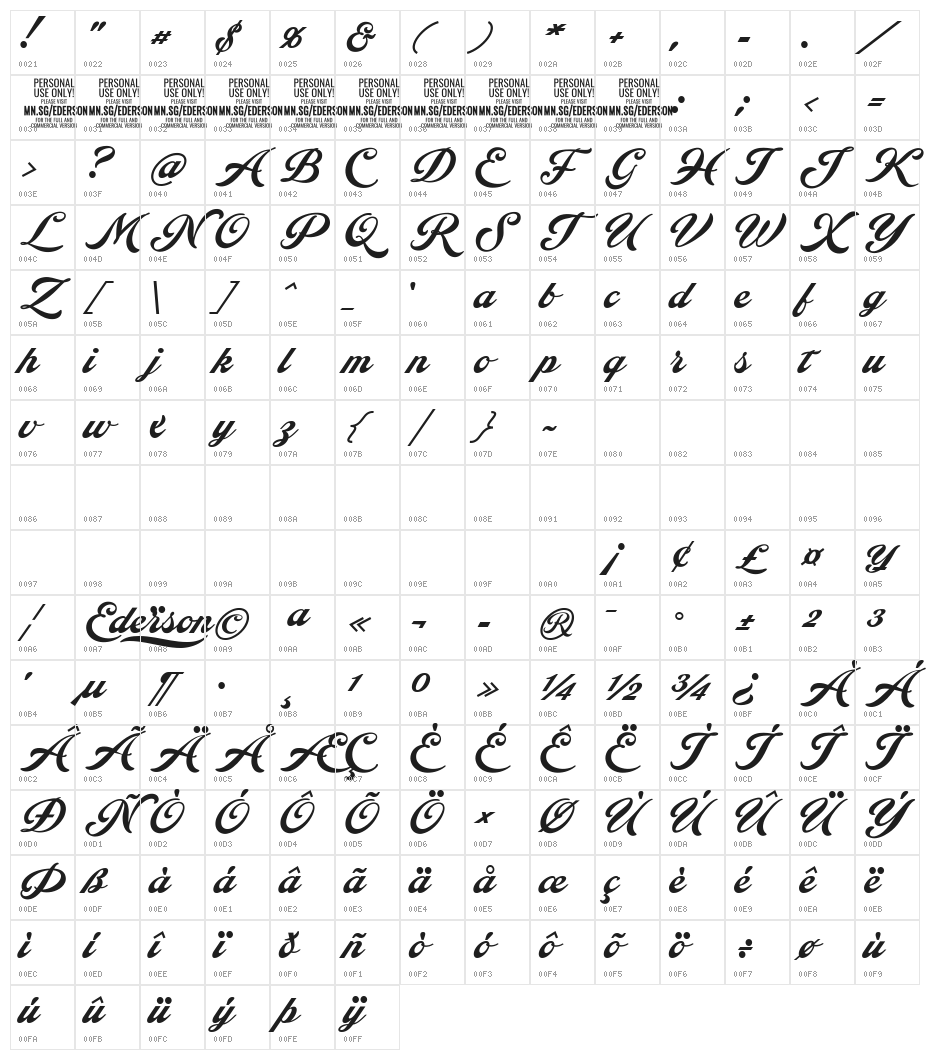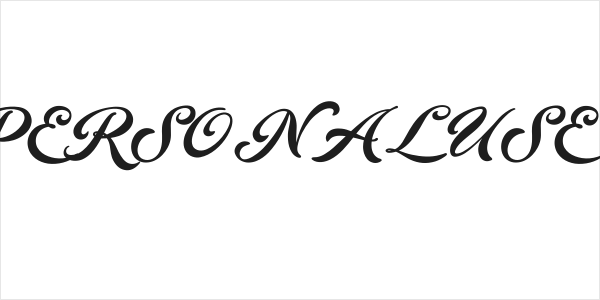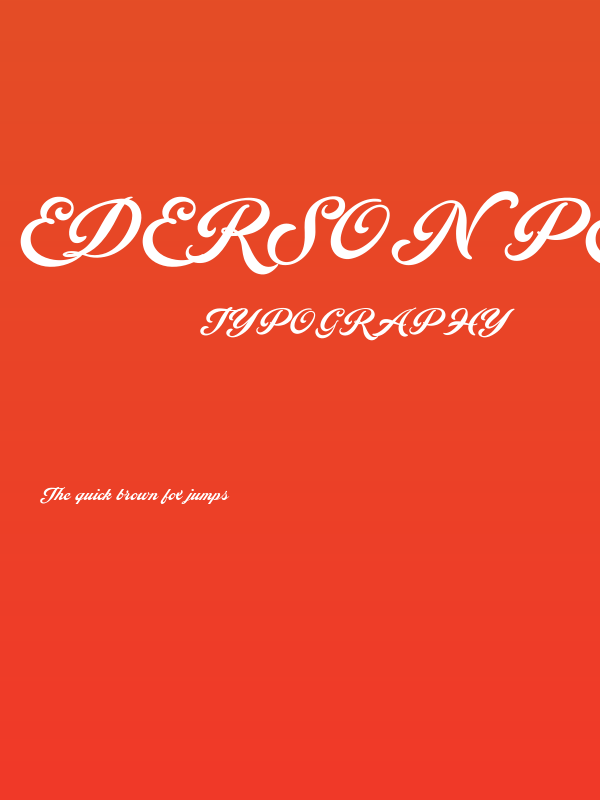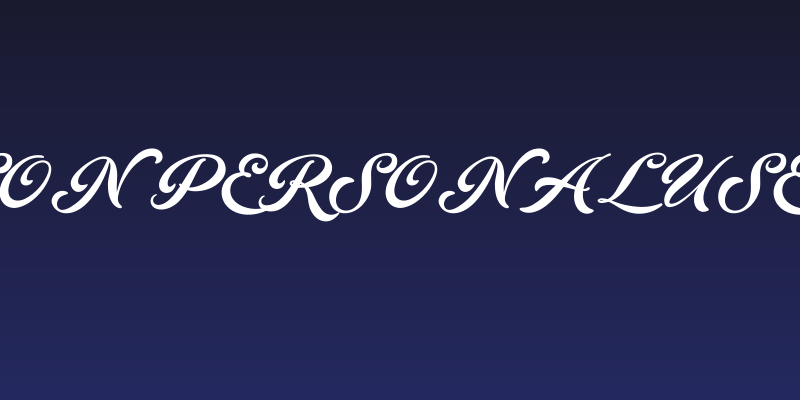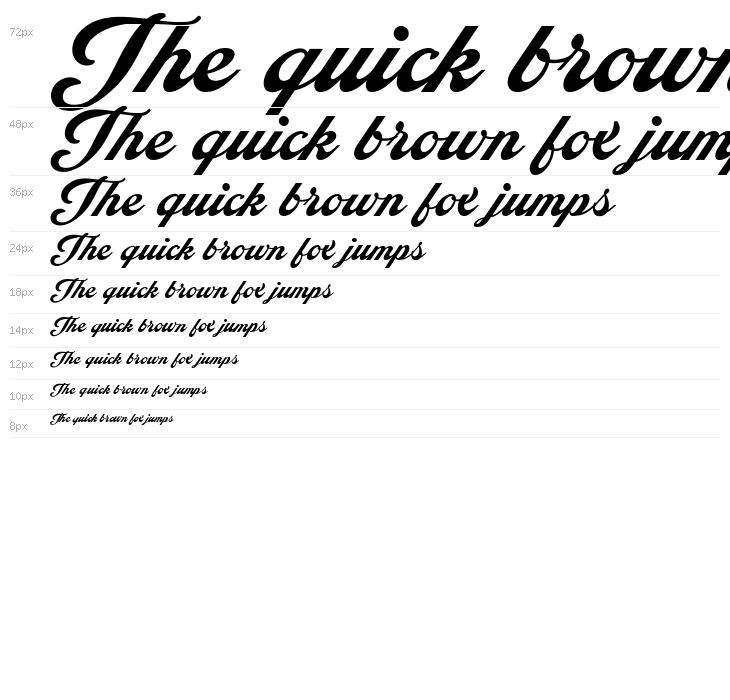
Ederson PERSONAL USE ONLY Font
Ederson PERSONAL USE ONLY Description
This font features a bold, cursive style with a modern flair. The uppercase letters are elegantly slanted, giving a sense of movement and fluidity. The lowercase letters maintain a consistent flow, with smooth connections between characters. The numerals and special characters are designed to match the overall aesthetic, providing a cohesive look. The font's bold weight and high contrast in stroke thickness make it stand out, while the character spacing is relatively tight, enhancing its dynamic appearance.
| Proposed Projects | Ideal for branding, logos, invitations, and headlines where a touch of elegance and modernity is desired. |